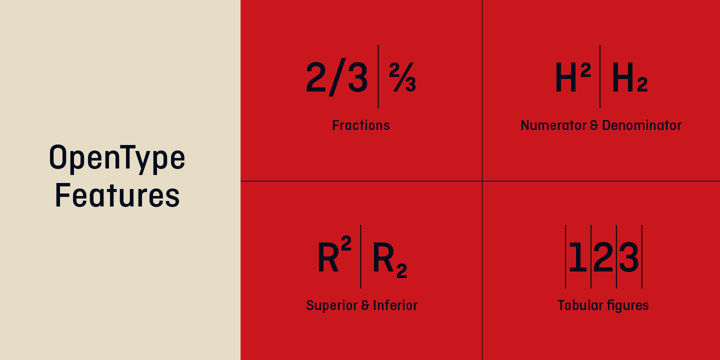
Ciutadella
Ciutadella by Emtype Foundry
Ciutadella Font Family was designed by Eduardo Manso and published by Emtype Foundry. Ciutadella contains 10 styles and family package options. More about this family
About Ciutadella Font Family
Ciutadella was originally commissioned by Mario Eskenazi’s studio. It is a versatile geometric sans serif, a simple, clean and direct family. Its power resides in an overhaul simplicity that reflects an “open” personality, easily suitable to be used across a wide range of applications, from identity systems to publications. Although it has been conceived to be used as a display typeface, it performs well in intermediate length texts mostly because of some specific characteristics such as the alternate two-story ‘a’. It is available in Open Type format and includes Alternate Characters, Ligatures, Tabular Figures, Fractions, Numerators, Denominators, Superiors and Inferiors. It supports Central and Eastern European languages. The type family consists of 10 styles, 5 weights (Light, Regular, Medium, SemiBold and Bold) plus italics. See also Ciutadella Rounded and Ciutadella Slab
About Emtype Foundry
Self-taught type designer Eduardo Manso is originally from Argentina but runs his one-man foundry, Emtype, in Barcelona, Spain. “My interest in type design grew gradually,” he said in his 2013 Creative Characters interview. “I think it is unavoidable, when you love fonts and use them in excess, that you eventually cross the line and become a type designer.” Each of Eduardo’s typefaces take a considerable amount of time to mature, and it shows: they are all thoughtful, original and well-wrought. “When you accept that designing a font is a long term activity,” he said, “it all becomes clear. It’s normal to spend several days drawing a ‘g’ or an ‘s,’ and it is also normal that three months later you no longer like it. So, we need time to design, time to leave it in a drawer, time to go back to it and finally time to redraw it over and over.” Several of his designs have been published through ITC, Bitstream, [T-26 ] and Linotype. Rather than responding to passing trends, Emtype publishes fonts that are aimed at enjoying a long shelf-life. One of his most popular typefaces, Geogrotesque, has been on the best sellers list since its 2008 debut. “Geogrotesque was born to answer my own question. I’m really proud of it because it’s simple but has a bit of personality, just enough to be original, but not so much as to be unusable.” An organizer of a major annual get-together for type designers, ATypI, Eduardo is committed to nourishing international typographic culture. “I think that in a globalized world it has become ever more difficult to speak of national identity in matters of design and typography,” he said. “The most important thing that a type designer has is their reputation, so it is better to wait and publish when you are absolutely sure about your typeface. It is the philosophy that I follow now and I believe.”